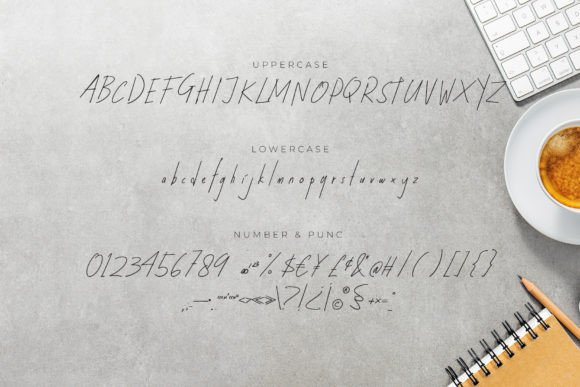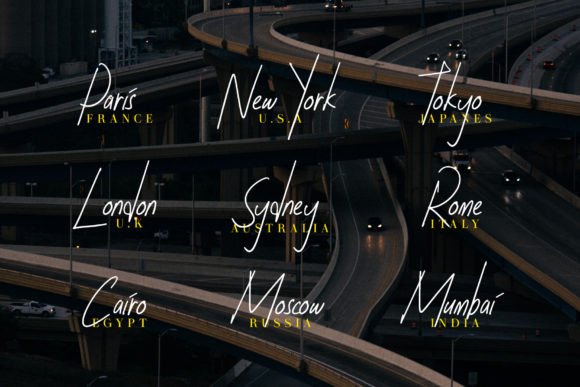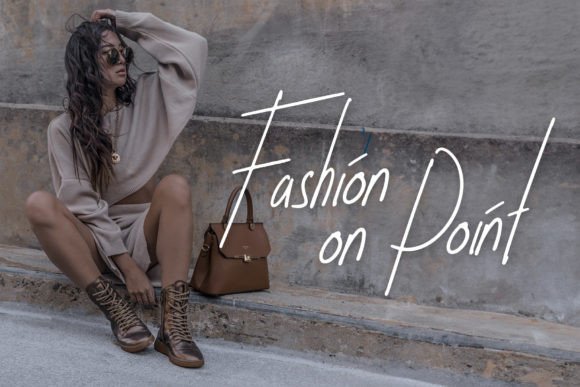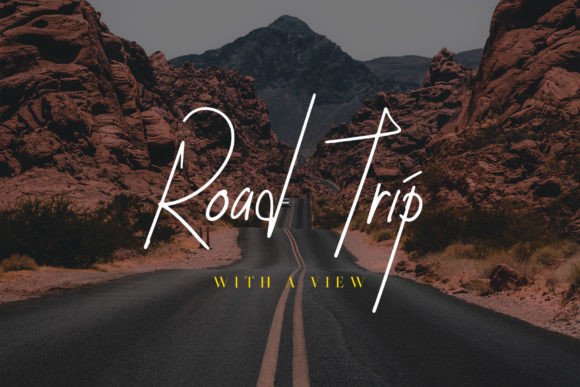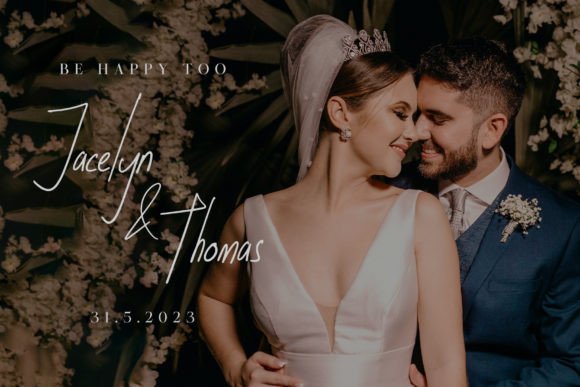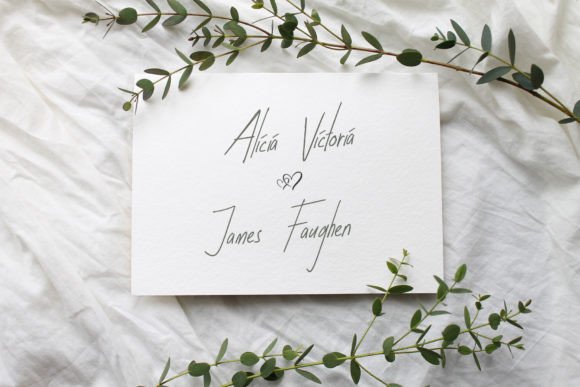
The Perfect Signature: Elevate Your Design with Amandave Signature Font
Have you ever stared at a blank page, waiting for inspiration to strike? You’re not alone. As creatives, we’ve all been there, searching for that elusive spark that sets our projects ablaze. For designers, the hunt for the perfect font is a never-ending quest – and we’re thrilled to introduce a game-changer: Amandave Signature Font.
This stylish and sophisticated font exudes elegance and charm, adding a touch of class and individuality to any project. Whether you’re crafting a luxurious brand identity, designing an invitation, or creating a logo, Amandave Signature Font is the perfect choice. Its unique signature-style design makes it a valuable asset for designers, elevating their work to new heights of sophistication and flair.
Amandave Signature Font Key Features
- Unique Characteristics: The Amandave Signature Font features a distinctive handwritten style with elegant flourishes, making it ideal for signatures, invitations, and other calligraphic designs.
- Letter Spacing and Kerning: The font has been carefully crafted to ensure optimal letter spacing and kerning, resulting in a smooth and even texture.
Amandave Signature Font Review
Amandave Signature Font is a unique and eye-catching font that can add a personal touch to your designs. Here are some of its strengths: ✨
- Beautifully crafted script font with a personal touch.
- Perfect for designers who want to add a human element to their work.
- Works well for titles, headings, and other prominent text elements.
- Highly legible, making it suitable for various font sizes.
- Limited language support, which may be a concern for designers who need to work with multiple languages.
- The font may not be suitable for small text sizes due to its decorative nature.
- No bold or italic variations available, which may limit its versatility.
Overall, Amandave Signature Font is a great choice for designers who want to add a personal touch to their work. While it has some limitations, its unique design and high legibility make it a valuable addition to any design arsenal.
Amandave Signature Font: A Practical Application Guide
Tips for Getting the Most Out of Amandave Signature Font
Experiment with different font sizes, colors, and styles to create a unique look.
Use Amandave Signature Font for headings, titles, or even a signature block to add a touch of elegance.
Combine Amandave Signature Font with other fonts to create a visually appealing design.
Amandave Signature Font is ideal for creating professional-looking documents, presentations, and graphics.
Use it for creating custom logos, business cards, or even a personal signature.
Amandave Signature Font is also perfect for adding a touch of elegance to social media posts, blog titles, or even a wedding invitation.
What is the recommended font size for using the Amandave Signature Font?
The Amandave Signature Font is designed to be versatile and suitable for a wide range of font sizes. However, for optimal readability, we recommend using font sizes between 14px and 24px for body text and 36px to 48px for headings.